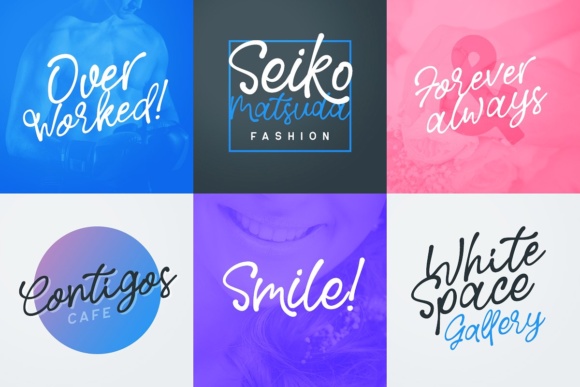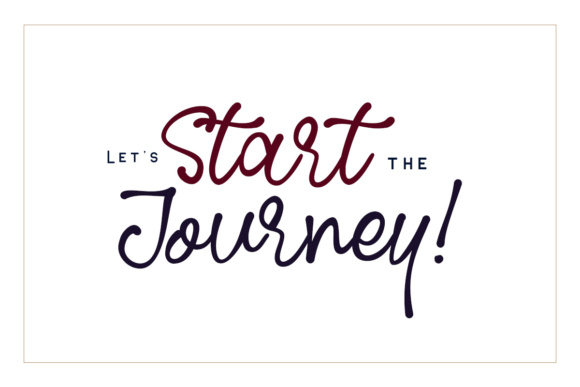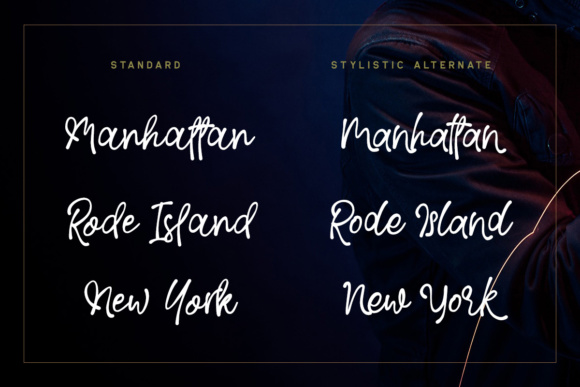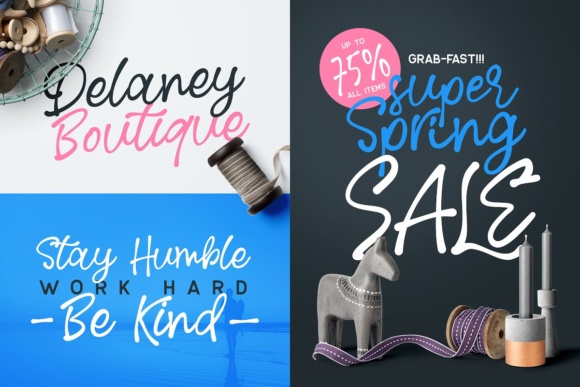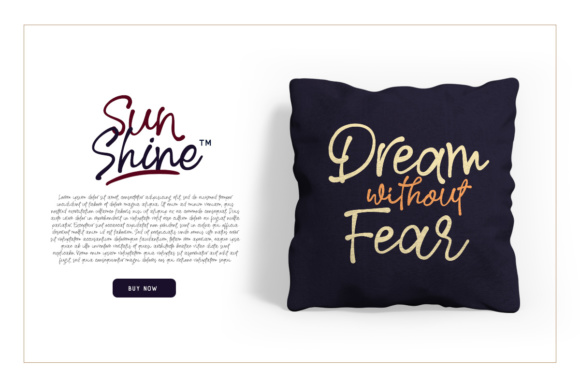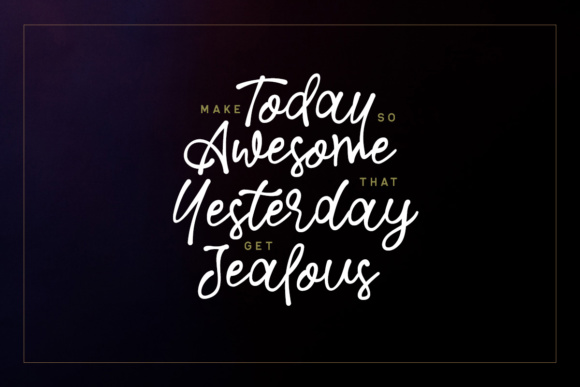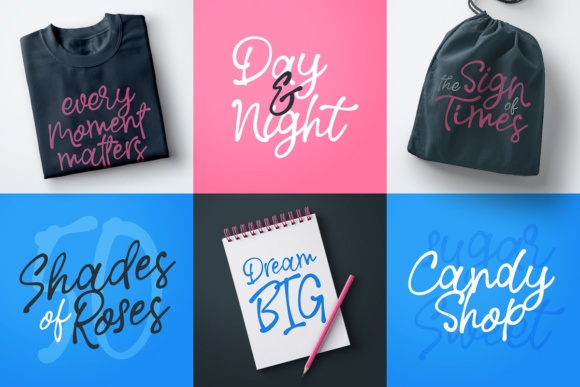
Rose Colored Script Font
About Rose Colored Script Font
Rose Colored is a Handwriting Script which is beautifully crafted with a feminine touch. This fontcan be used perfectly for logos, quotes, apparel designs, wedding invitations and much more designs with a girly / feminine theme.